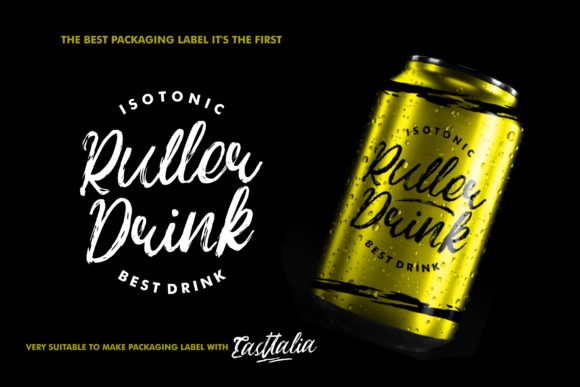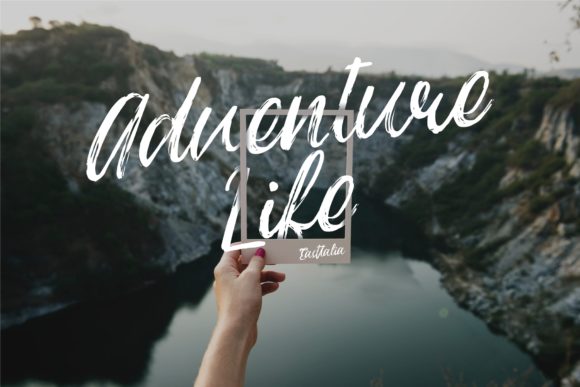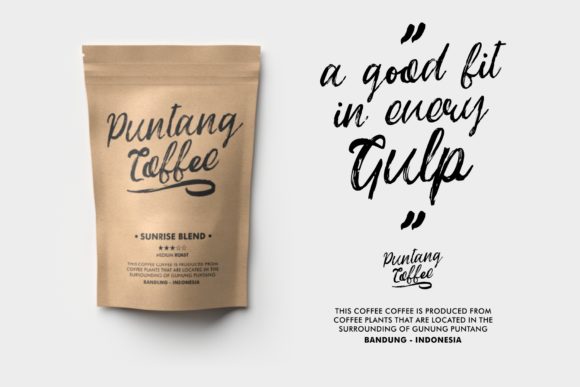
Introduction to Easttalia Script Font
The Easttalia is a striking brush script.
It was based on hand-lettered script with a natural feel It’s perfect for logos, printed quotes, invitations, cards, product packaging, headers and much more.
Key Features of Easttalia Script Font
Why Choose Easttalia Script Font?
Easttalia Script Font offers exceptional quality and versatility, making it a valuable addition to your design toolkit. Whether you’re creating for personal projects or commercial use, Easttalia Script Font delivers professional results.